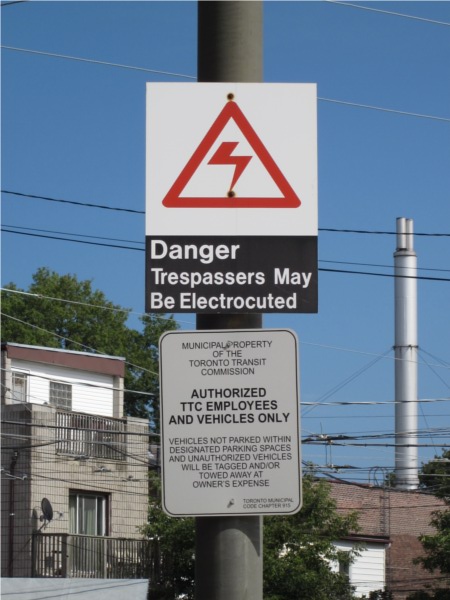
Danger Trespassers May Be Electrocuted
This sign is brought to you by the friendly folks at the TTC. It’s blunt and unapologetic and there’s a little note of uncertainty: you “may” be electrocuted.
I’m fascinated by the symbol, that jagged red mark. Strangely enough, it makes me think less of sudden death than of love, the way it zaps you unexpectedly, leaving you electrified.
I propose that next Valentine’s Day we replace the all-too-familiar red heart with a red thunderbolt.
What I also like here is that the bolt has hit its mark, the dot. With one waiting on top
That’s funny, I didn’t really pay attention to how the bolts on the sign become part of the design. Very observant!